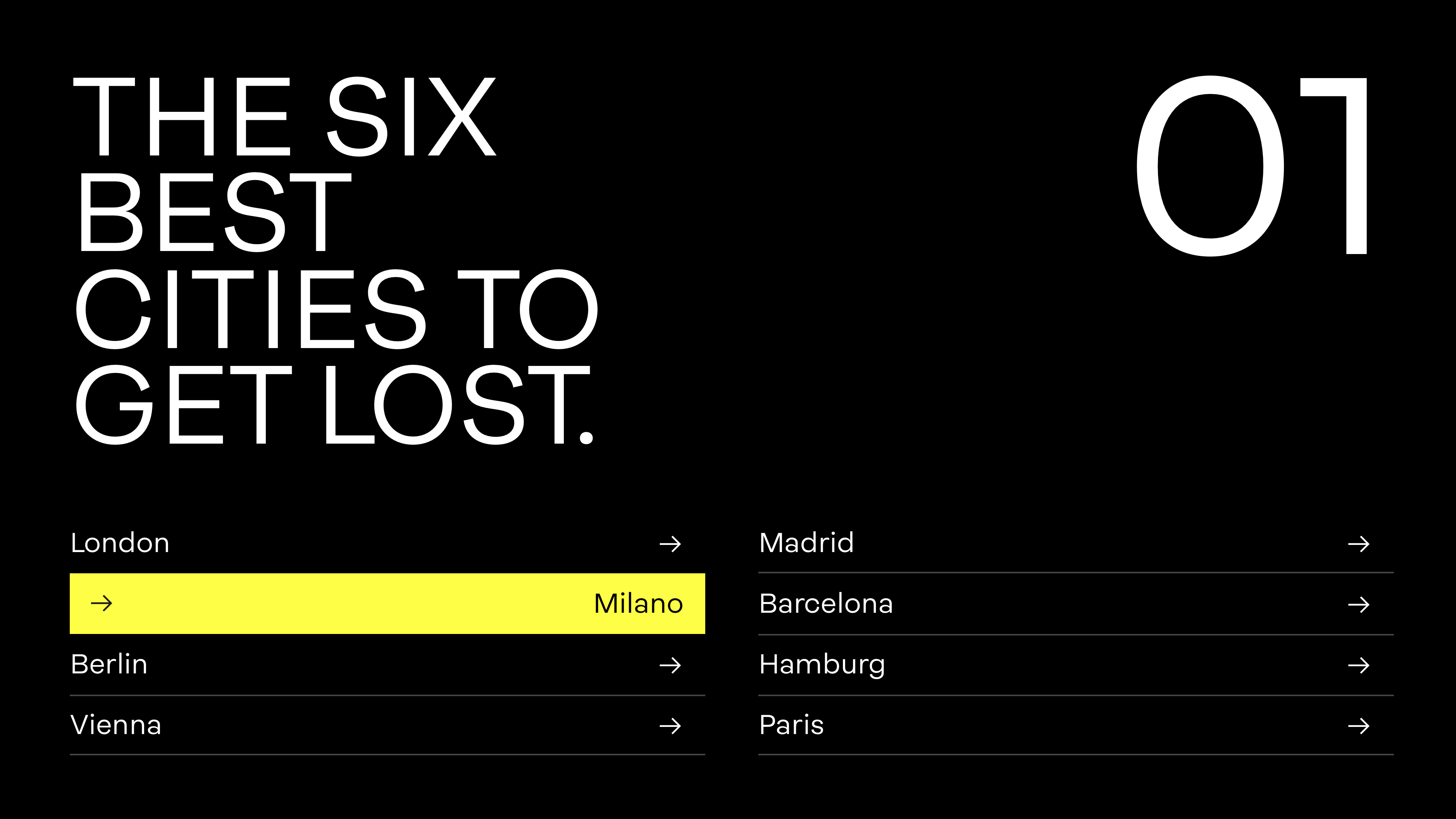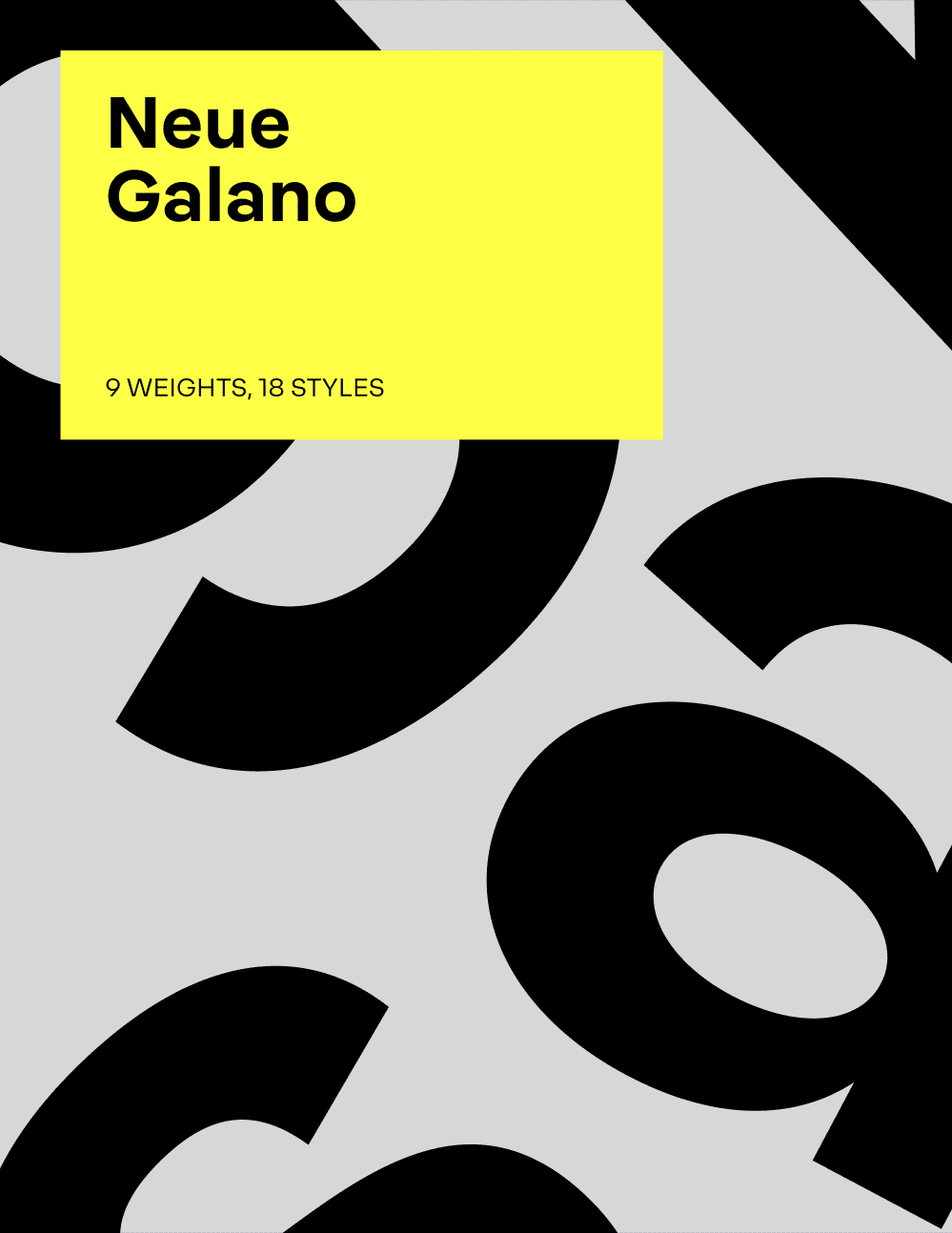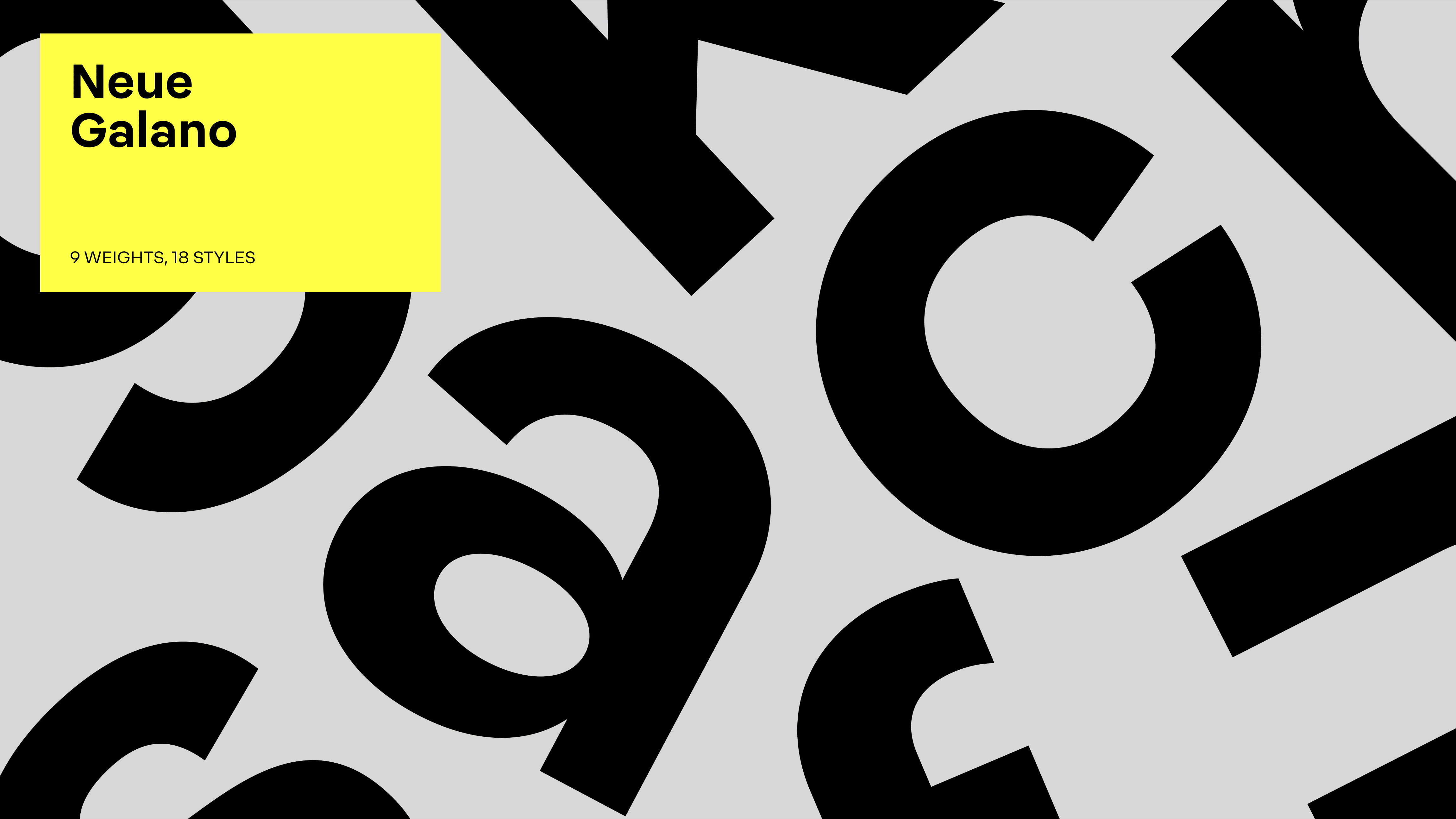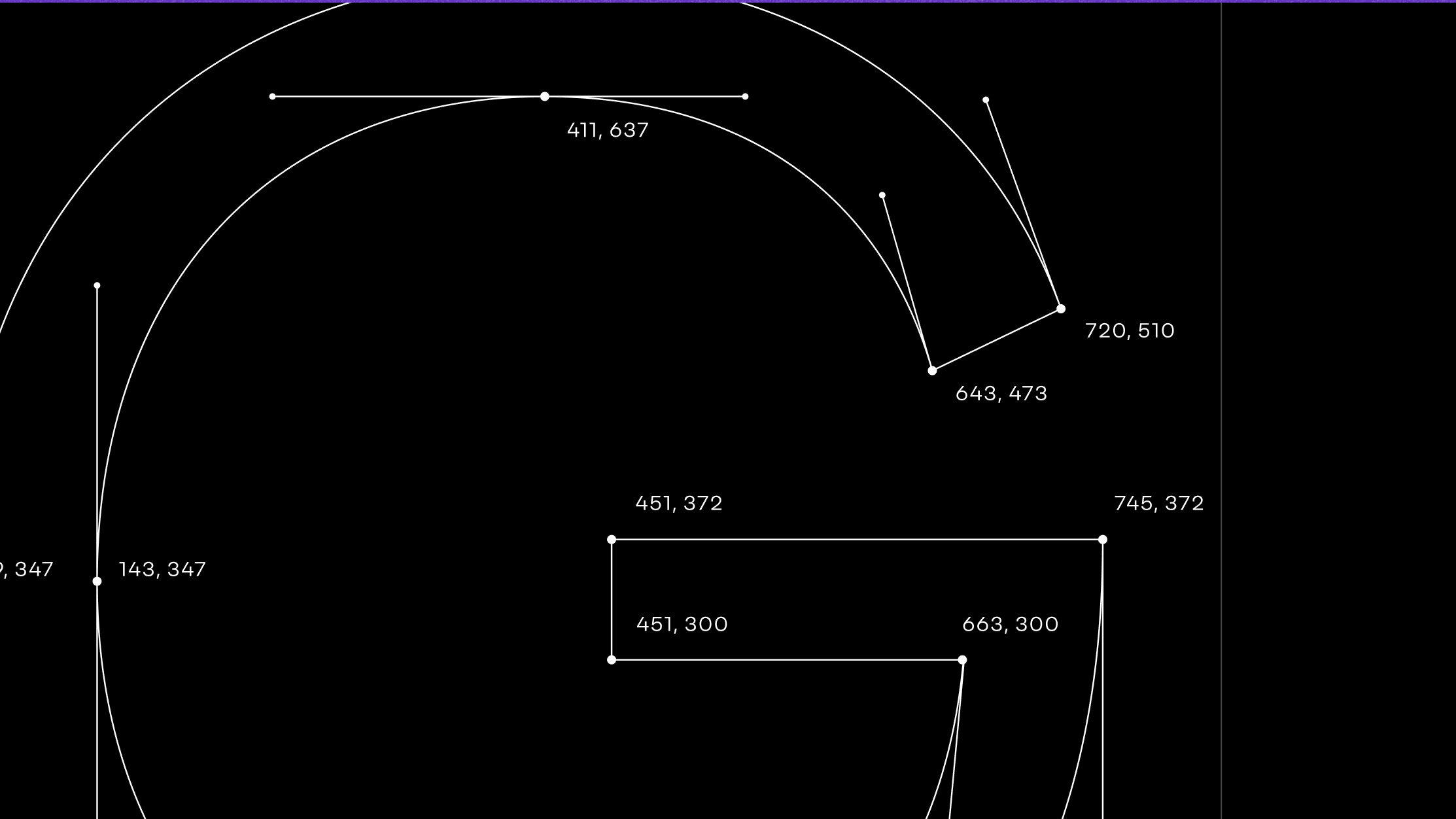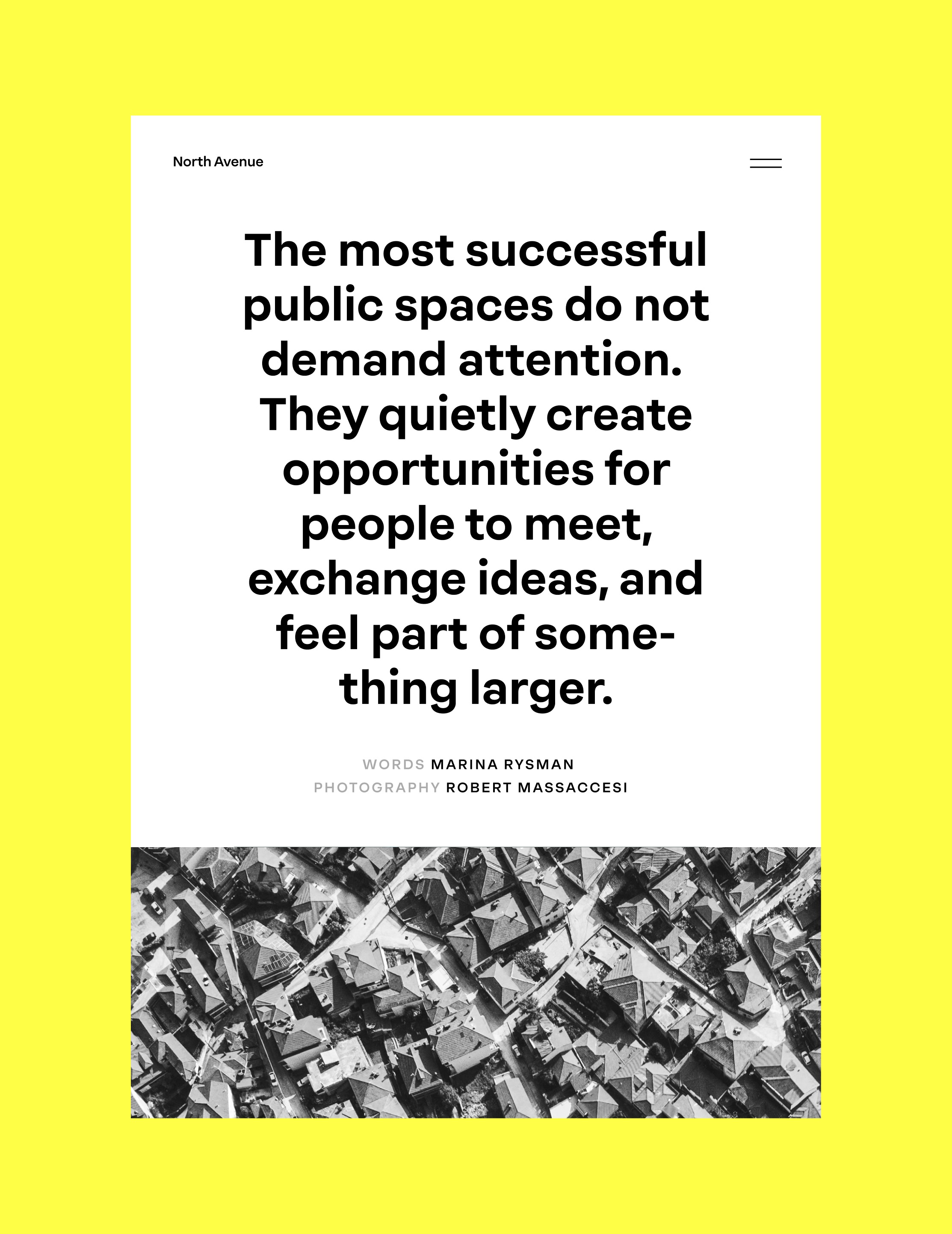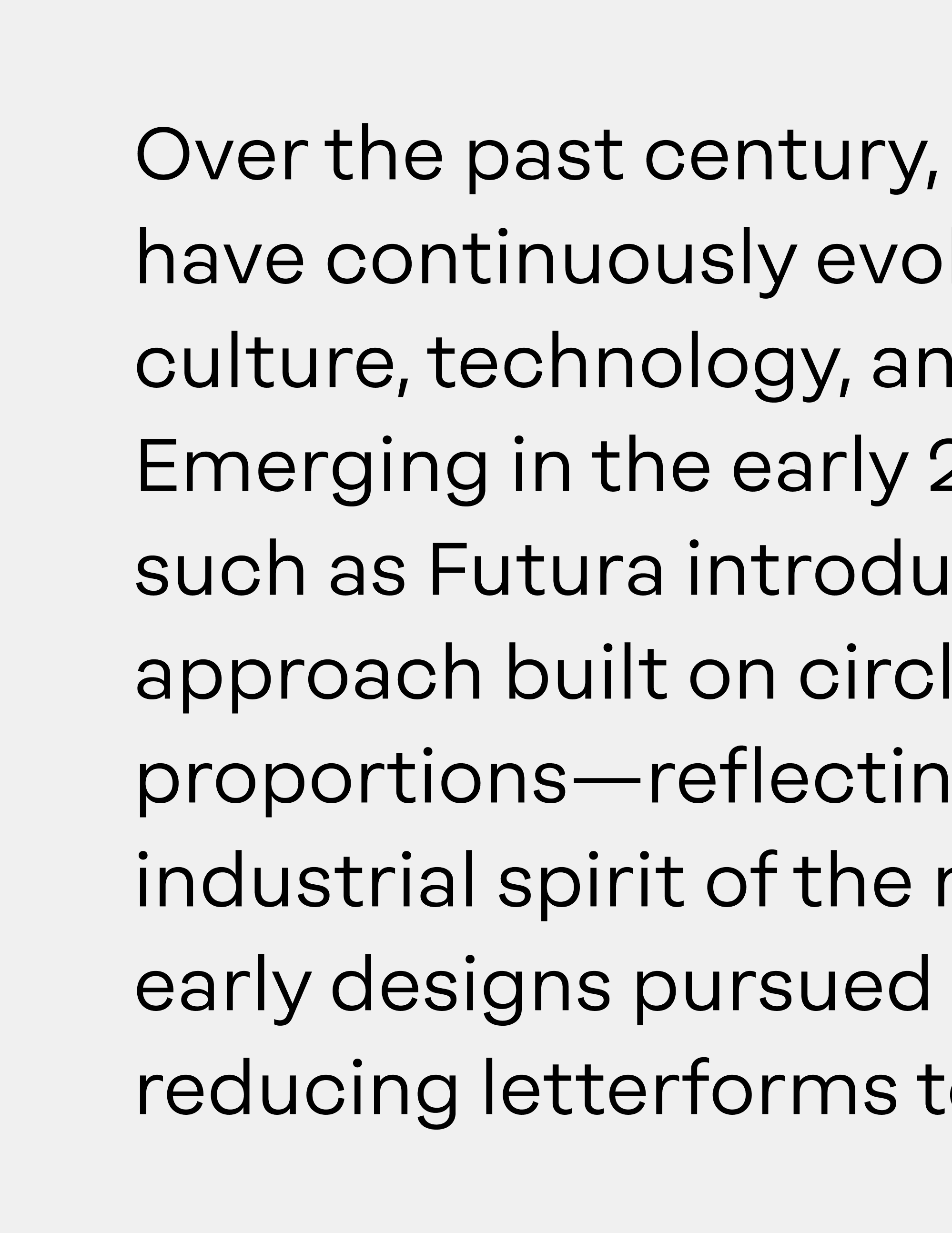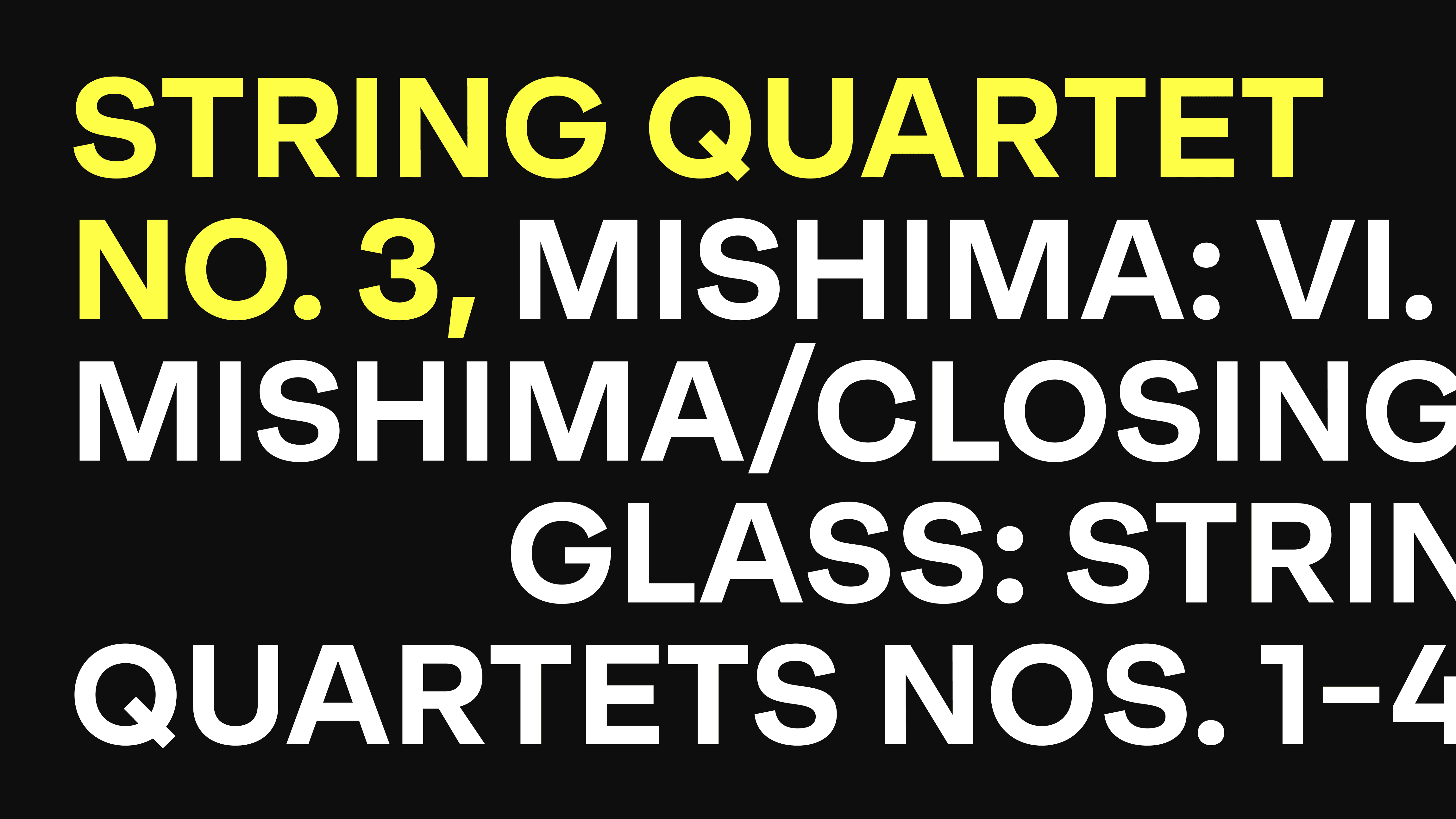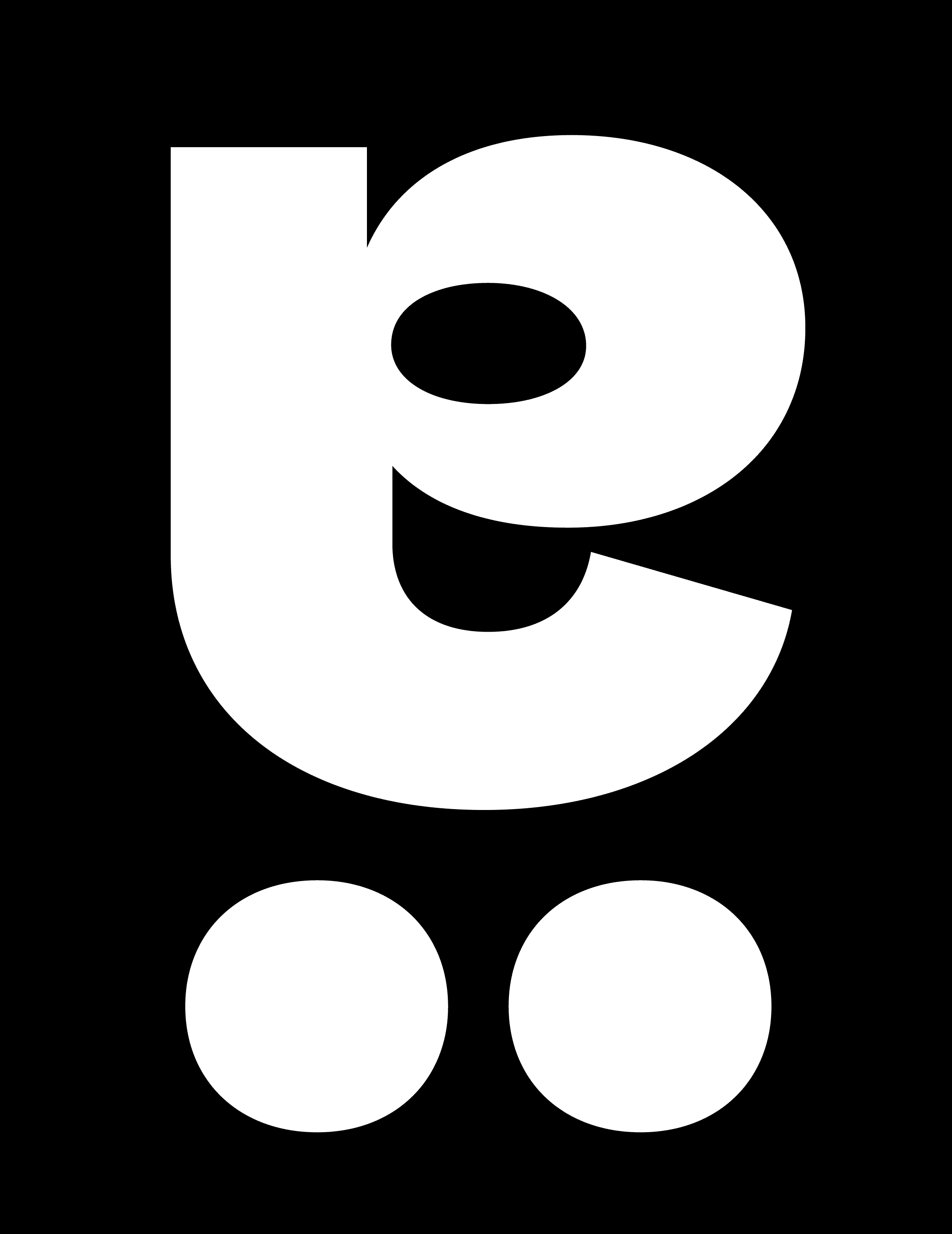
Neue Galano
Neue Galano continues the legacy of geometric sans-serifs with a warm, approachable character and refined contemporary details. Balancing clarity and personality, it adapts effortlessly to branding, editorial design, and digital interfaces.